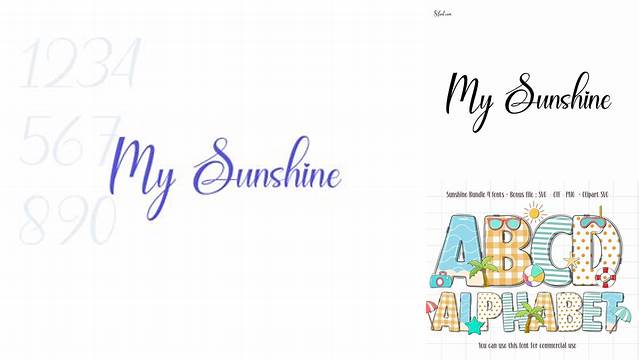
Hey guys! If you're on the hunt for a font that's all about sunshine, positivity, and a touch of playful elegance, then you've probably stumbled upon My Sunshine font. This font has been gaining a lot of popularity, and for good reason. It's got that perfect balance of readability and style that makes it ideal for a bunch of different projects. In this guide, we're going to dive deep into everything you need to know about the My Sunshine font, from where to snag a free download to how to use it like a pro.
What is My Sunshine Font?
First things first, let's get to know the star of the show. The My Sunshine font is a beautiful, script-style typeface that's designed to evoke feelings of warmth, happiness, and creativity. It typically features elegant, flowing strokes, making it look like it was written with a high-quality pen. Often, this font comes with a unique personality that makes your designs stand out. It has a natural and organic feel, adding a touch of personality to any project. Whether you're working on a personal project or a professional one, My Sunshine is an excellent font choice. The My Sunshine font is perfect for crafting designs that need a touch of sophistication with a friendly vibe. This font is known for its versatility. It works beautifully in a variety of contexts, from logos and branding materials to social media graphics and even wedding invitations. The characters often connect in a seamless way, adding to the font's graceful appearance. When used correctly, My Sunshine font can really help to elevate your designs. The font is like a visual hug, instantly making anything you design more approachable and appealing. Plus, the varying weights and styles available with some versions of the font can let you play around with your designs and give you a little extra creative freedom. If you're looking for a font that conveys optimism and a dash of elegance, the My Sunshine font might be your new best friend. This font is an amazing choice that is super flexible. Its clean lines and friendly appearance help to make your design pop. It is so good, right?
How to Use the My Sunshine Font in Your Designs
Now that you've got the My Sunshine font installed, let's talk about how to use it to its full potential. This font is incredibly versatile, but understanding how to best implement it will help you create beautiful and effective designs. Here's how to make the most of it:
Logos and Branding
The My Sunshine font is an amazing choice for logos and branding materials. Its friendly and inviting style can create a positive first impression. Use it for your company name, taglines, or even to create custom icons. Because the font is easy on the eyes, it gives your brand an approachable feel. When using this font in logos, focus on clarity. Make sure the text is easily readable, especially at smaller sizes. Experiment with different weights and styles (if available) to find the perfect look for your brand. Remember, consistency is key. Use the font across all your branding materials to create a cohesive brand identity. Using My Sunshine font in logos and branding is a great way to create a positive and lasting impression. The font has an elegant style that is easy to read.
Social Media Graphics
This font is also perfect for social media graphics! Use it to create eye-catching posts, quotes, and promotional materials. It's especially effective for posts with inspirational quotes, announcements, or any content where you want to convey a sense of warmth and positivity. When using the My Sunshine font on social media, consider your audience. Make sure the font complements your brand's overall aesthetic and message. Try using the font on text overlays on photos or videos to make them more engaging. Also, make sure to keep text legible and use high-resolution images. The font helps you create social media content that not only looks great but also resonates with your audience. The font will make sure that your audience will interact with you more.
Wedding Invitations and Greeting Cards
The My Sunshine font is a charming choice for wedding invitations and greeting cards. Its elegant, flowing script adds a touch of sophistication and personalization to your designs. It's perfect for creating invitations that feel unique and special. For wedding invitations, use the font for names, dates, and important details. It can be paired with other fonts for body text. When making greeting cards, the font is perfect for heartfelt messages and wishes. You can also use it to create custom cards for any occasion. Remember, the font's aesthetic is all about adding personality. The My Sunshine font has the amazing ability to transform simple stationery into keepsakes. The font helps make your designs look unique. Using the My Sunshine font in this way can help make your invitations and cards extra special.
Conclusion: Embrace the Sunshine!